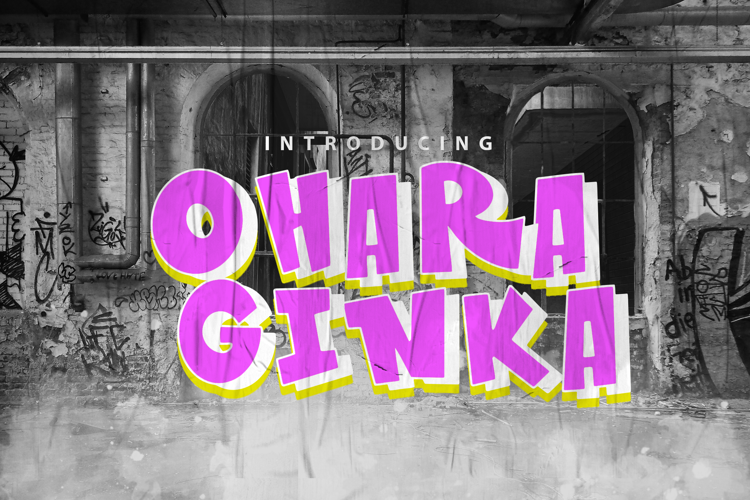
OHARA GINKA Font
OHARA GINKA is a spectacular Display font with a Fatty and Cools graffiti style for your design look awesome. It will elevate a wide range of design projects to the highest level, be it branding, headings, designs, invitations, signatures, logotype, Streetwear, wall art illustration, apparel, labels, and much more!